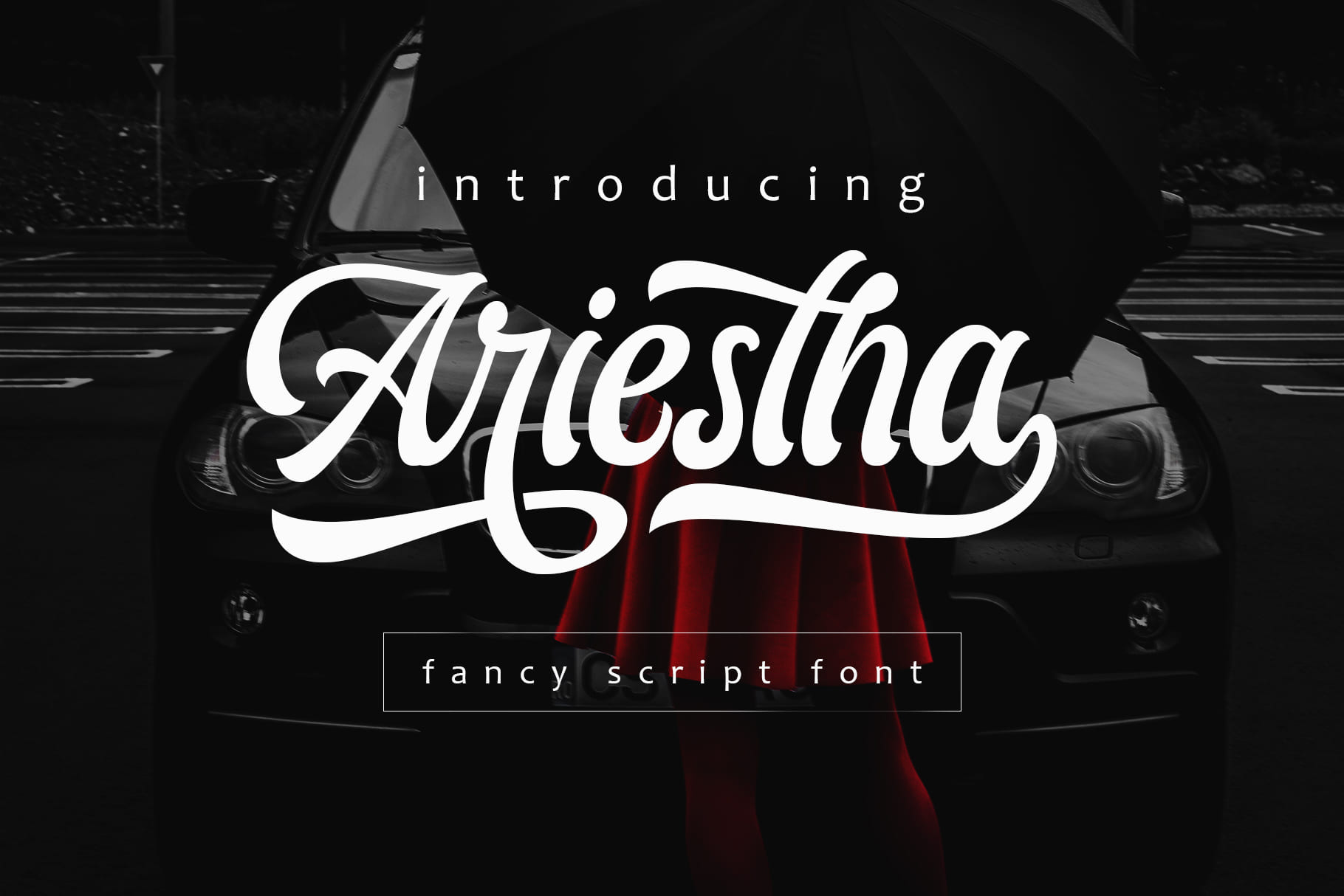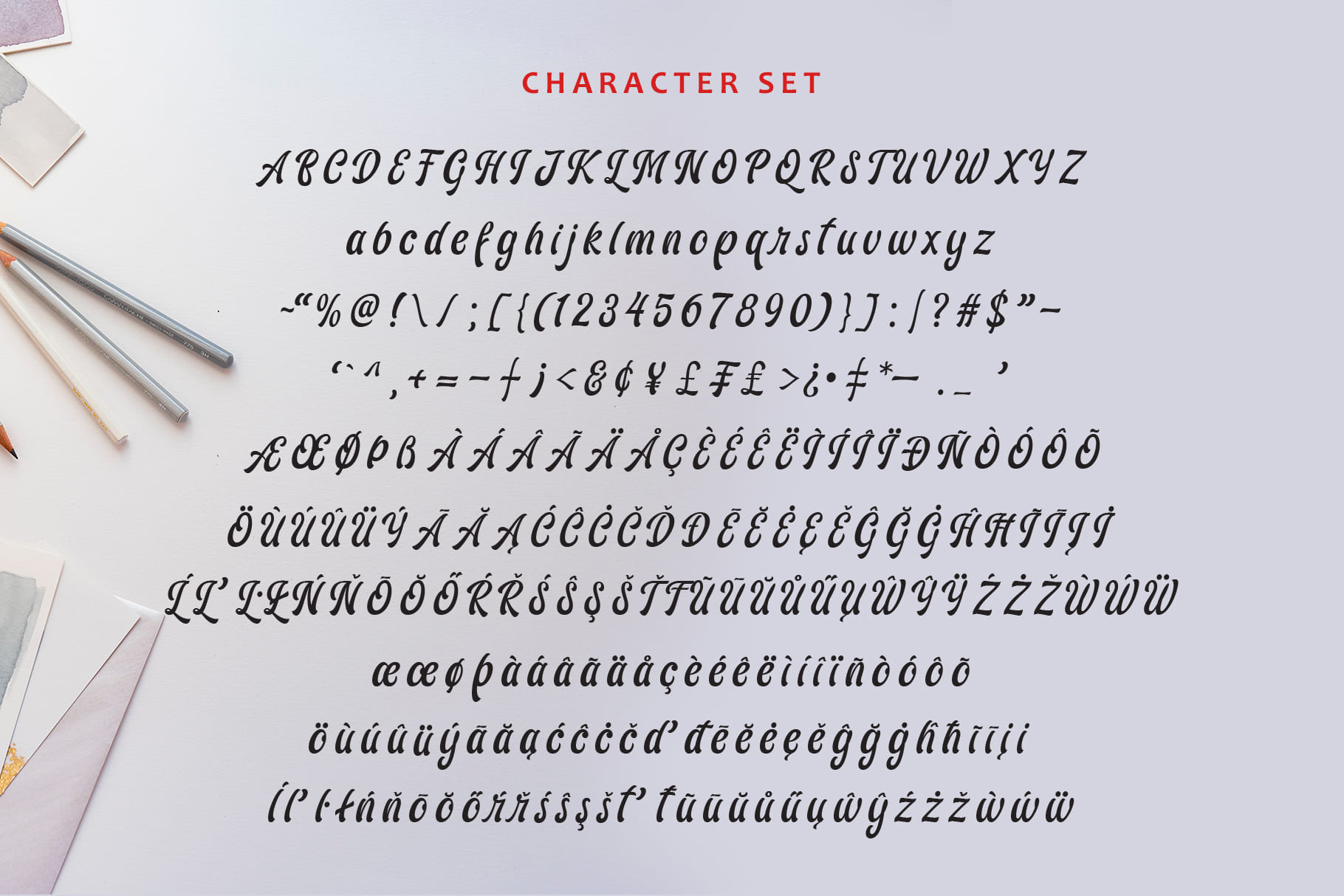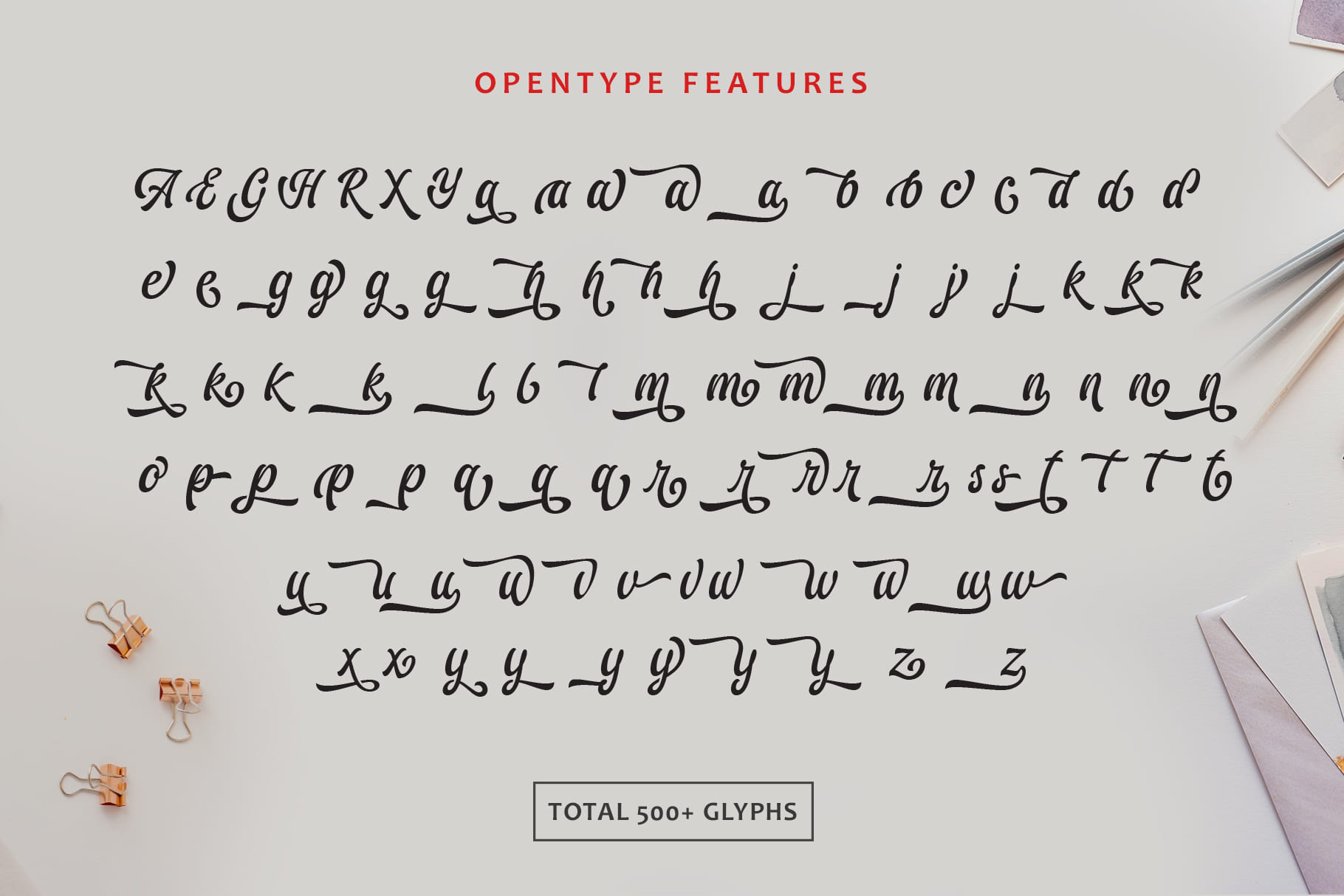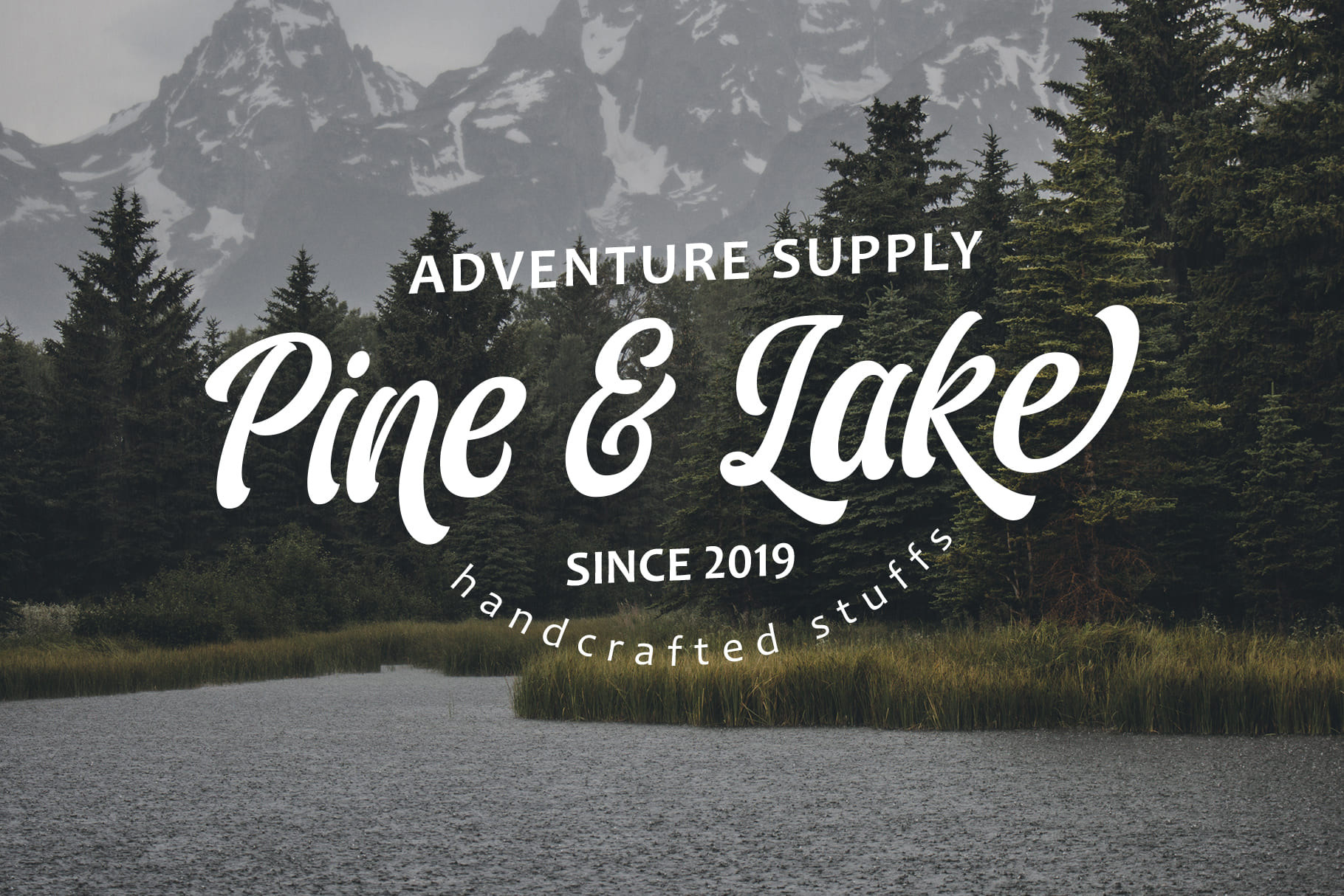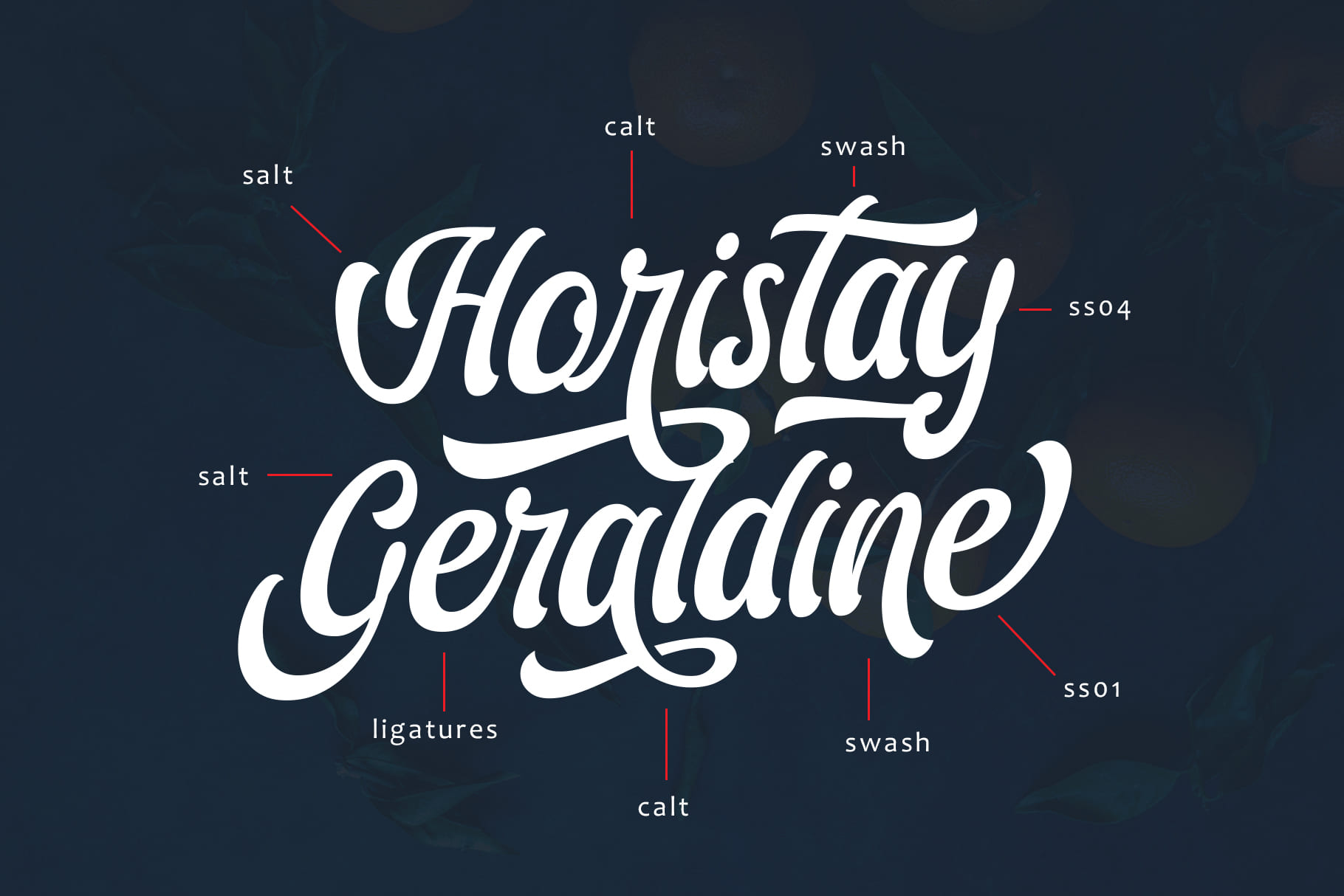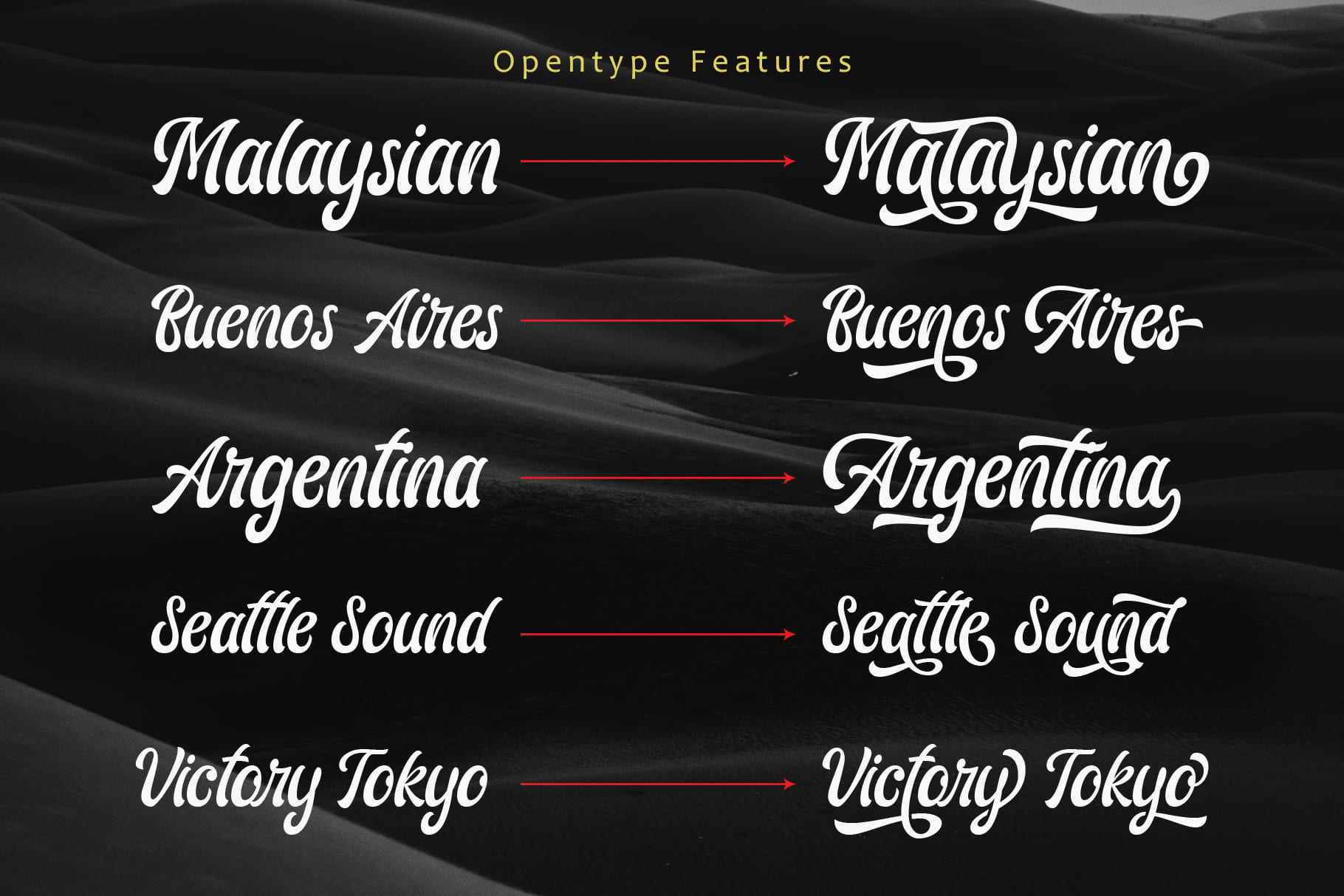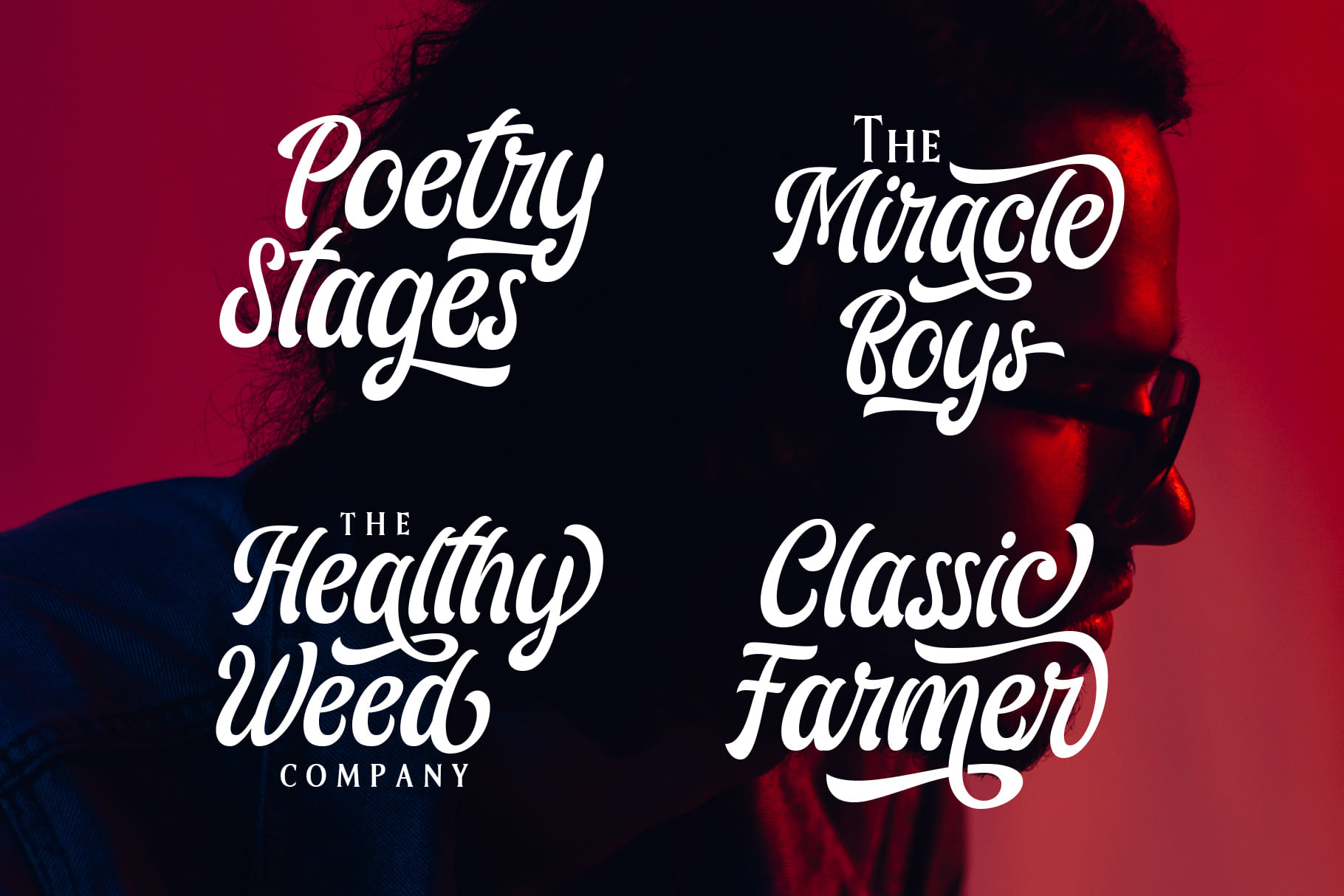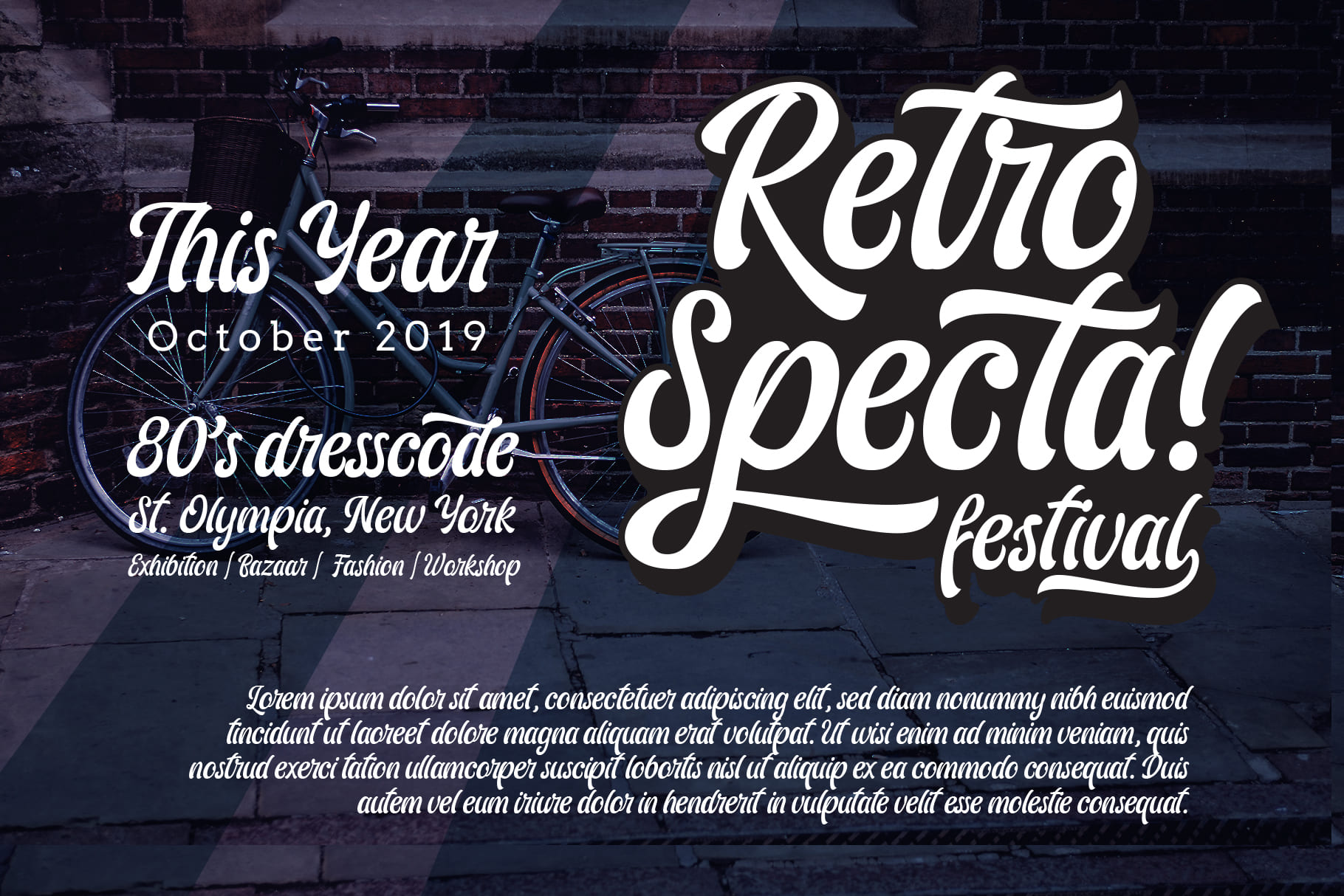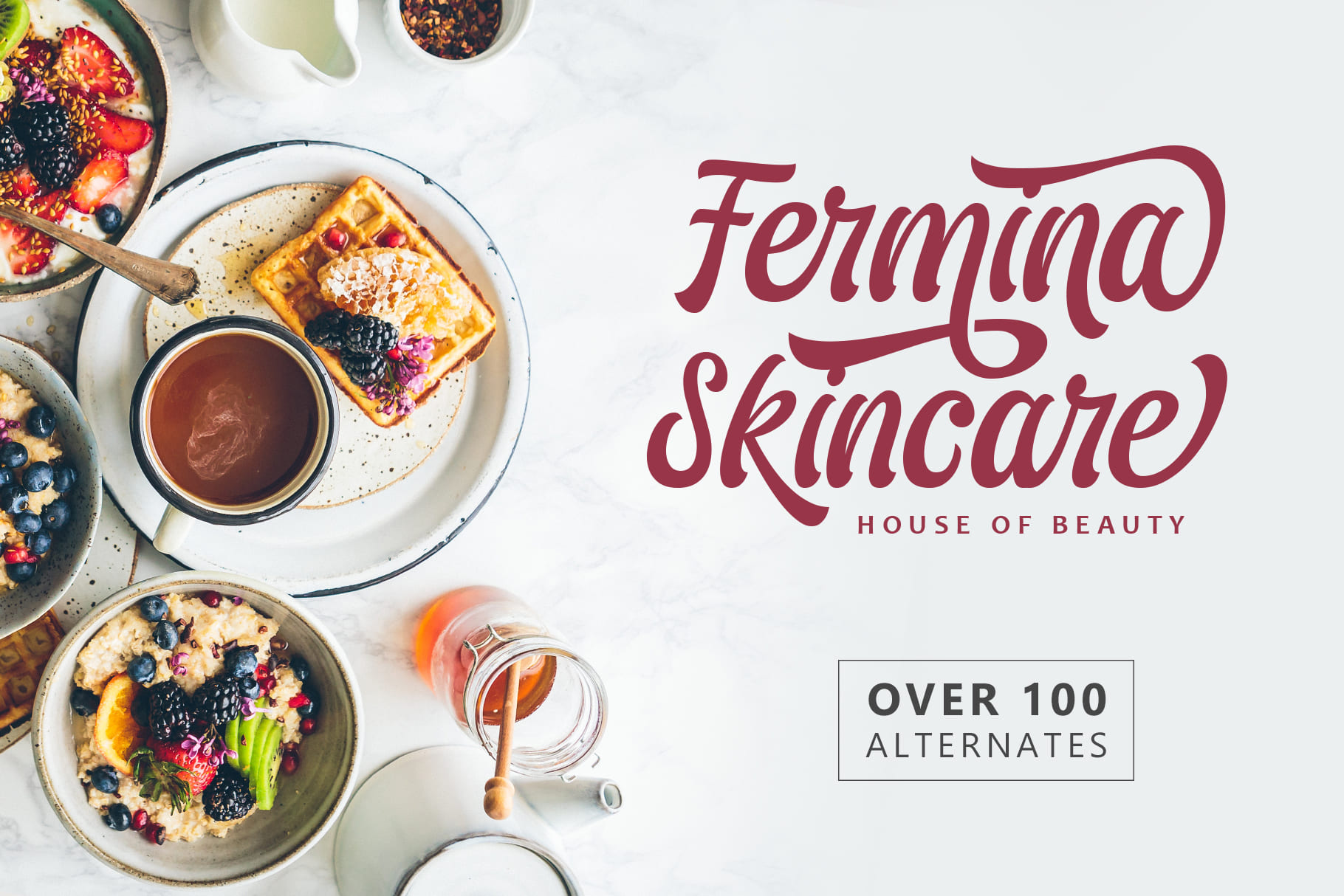
Ariestha (1 font)
From Arterfak Project
Ariesta scripts comes with many variations of OpenType features accessible in Adobe Illustrator, Photoshop, InDesign and others.
Perfect for headlines in logotypes, sign painting, posters, die-cut crafts, branding, storefront and merchandise design!
Ariestha Script has over 500+ Glyphs with 26 multi-lingual accents. Includes standard punctuation, uppercase and lowercase letters, stylistic alternates, contextual alternates, ligatures, stylistic set 01 - 04.